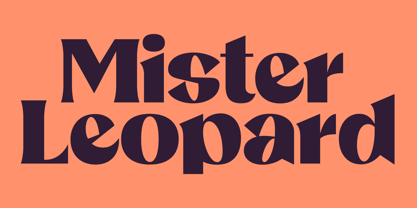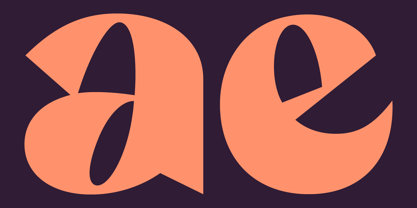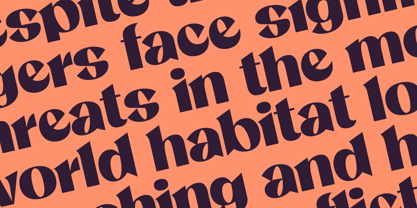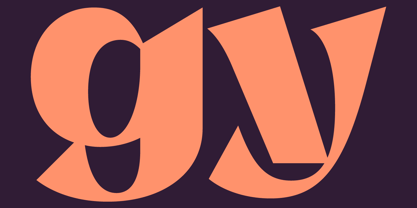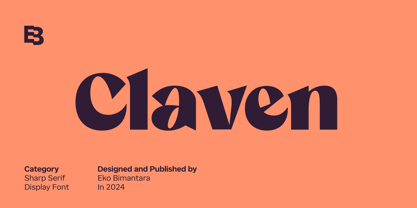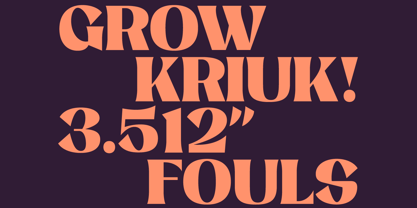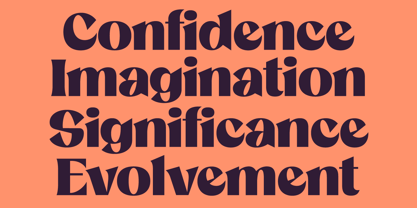
Claven
by Eko Bimantara
Claven is a bold sharp serif display font featuring distinctive flared serifs, a large x-height, and unique character design. Its strong and eye-catching style is perfect for modern and classic-themed projects alike. Claven excels in branding, titles, product packaging, posters, and headers, making it ideal for large-size displays and creative layouts. Whether used for websites, brand identities, or a broad range of graphic design purposes, Claven adds a sharp, impactful presence to any design.
About Eko Bimantara
Eko Bimantara is a type designer from Indonesia. Always has an intention to creating fonts that not only look great but also perform across a wide range of mediums and also across wide range of theme. The goal is to give designers the tools to make their projects that speaks a lot with various expression. Eko Bimantara’s fonts are featured in everything from corporate identities to street art posters, and have numerous ideas and concept ready to expand for fresh fonts for years further.